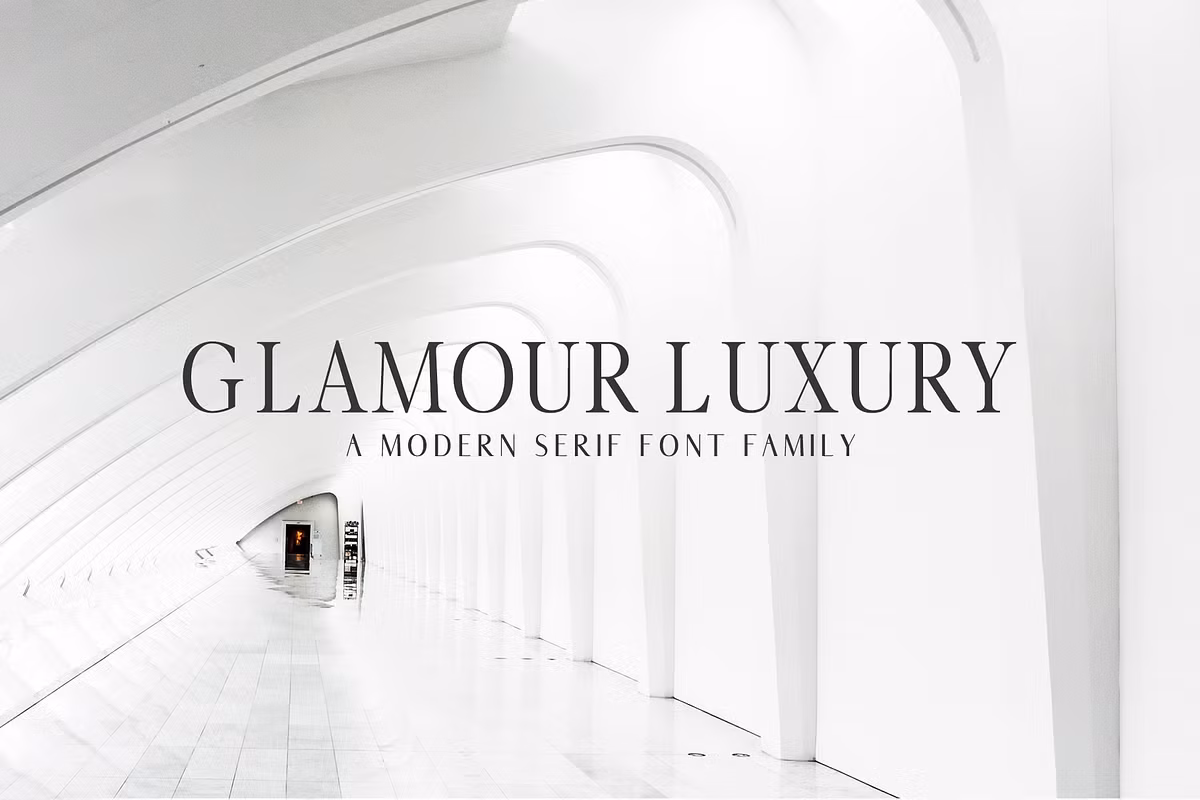
You must purchase this font for commercial use. However, you can download Glamour Luxury Serif Font Family Free Download for testing purposes. Glamour is a refined and elegant serif font family designed to bring a touch of luxury and sophistication to your designs. With multiple weights and styles, this versatile font family is perfect for high-end branding, editorial layouts, fashion design, invitations, and upscale marketing materials.
Each font in the Glamour Luxury Serif Font Family offers exquisite letterforms, high contrast strokes, and sharp, graceful serifs that create a timeless and classy feel. Whether you're working on a modern luxury brand, crafting a chic magazine spread, or designing premium product packaging, Glamour adds the perfect touch of refinement.